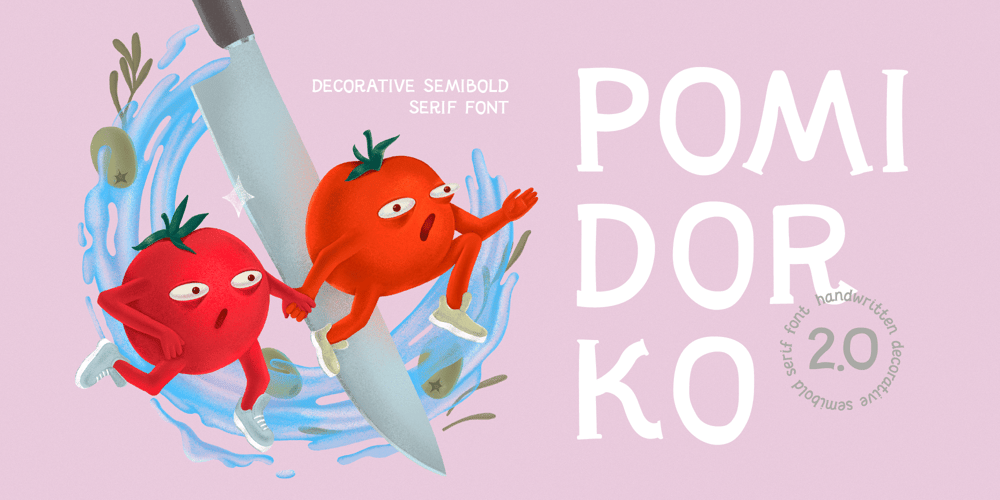
Pomidorko_2.0 Font Family was designed by Antonina Chikhiro and published by Chikhiro. Pomidorko_2.0 contains 1 styles and family package options. Introducing Pomidorko 2.0, the highly anticipated sequel to the beloved font Pomidorko that has captured the hearts of countless users. This enhanced version has now evolved into a commercial release, offering even more versatility and charm. Designed with a delightful and effortless aesthetic, Pomidorko 2.0 is a perfect choice for children’s products, culinary ventures, and book illustrations. Its playful and endearing character adds a touch of whimsy to any design.With both Cyrillic and Latin variations included, this font ensures seamless communication across diverse languages and markets. Multilingual support is included for Western European languages. Don’t forget to test your characters in the font previewer below before purchasing. The Pomidorko 2.0 font also includes Open-type features to make it even more versatile. Unlock the enchanting possibilities of Pomidorko 2.0 and infuse your projects with a dash of sweetness and joy.